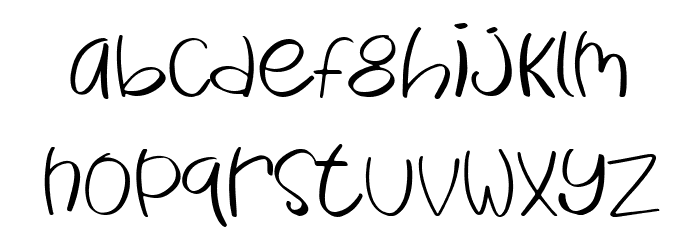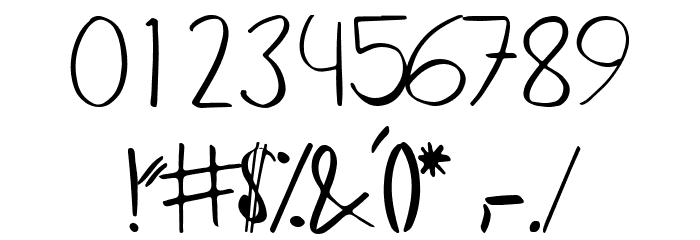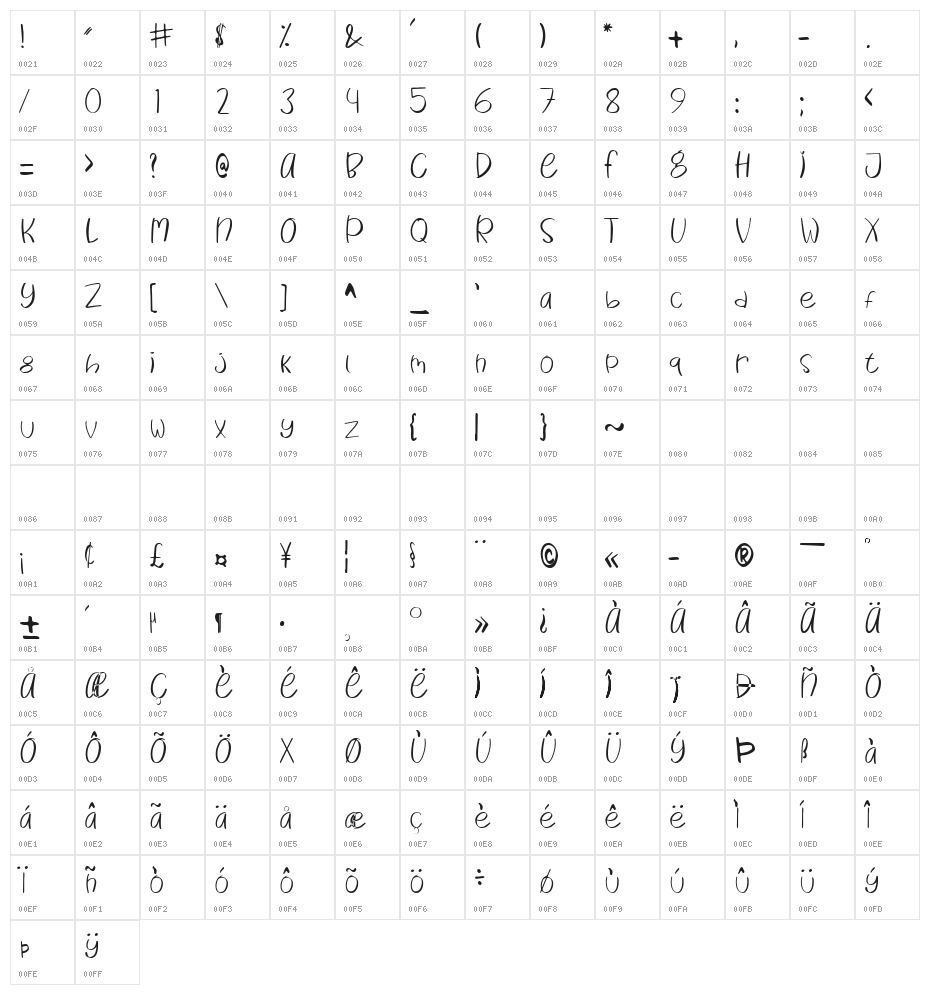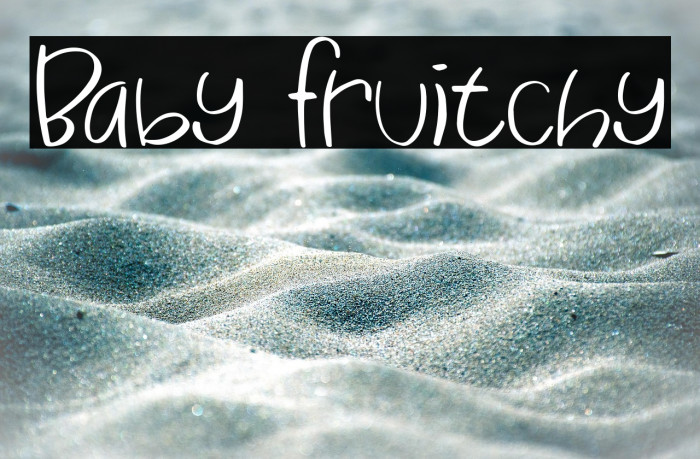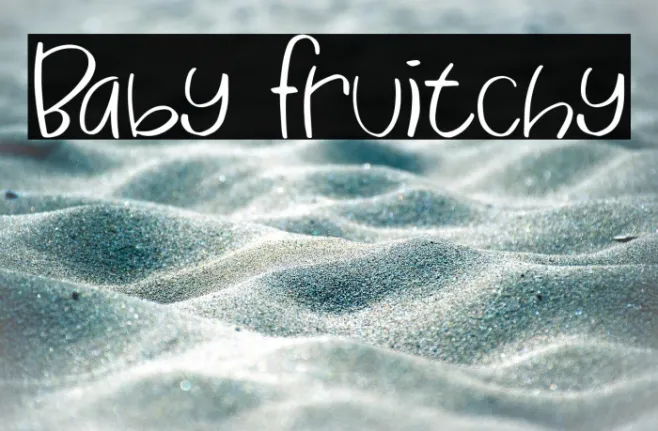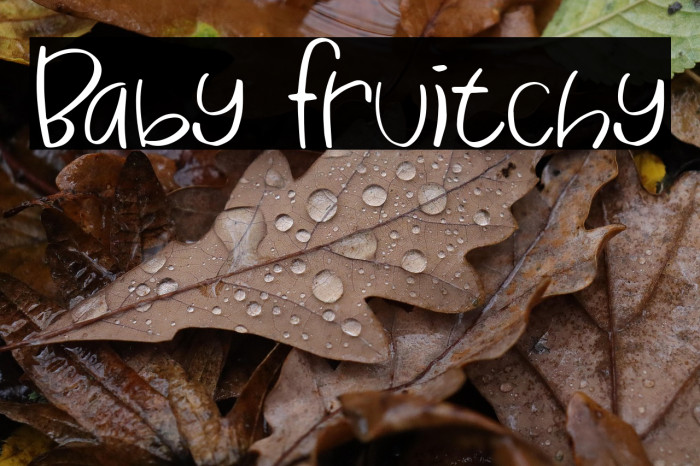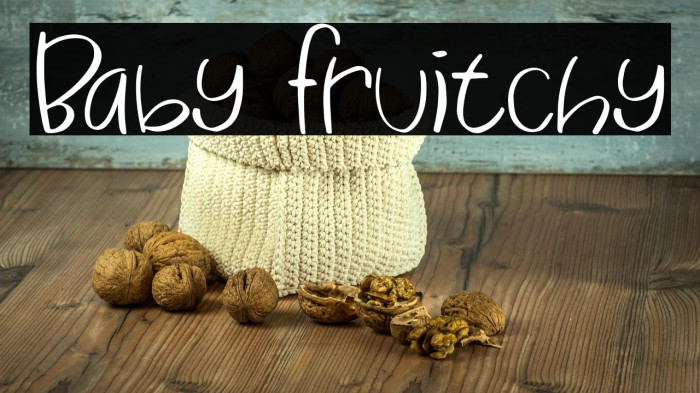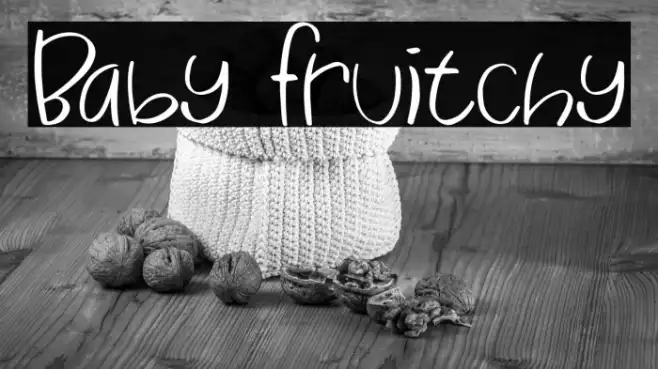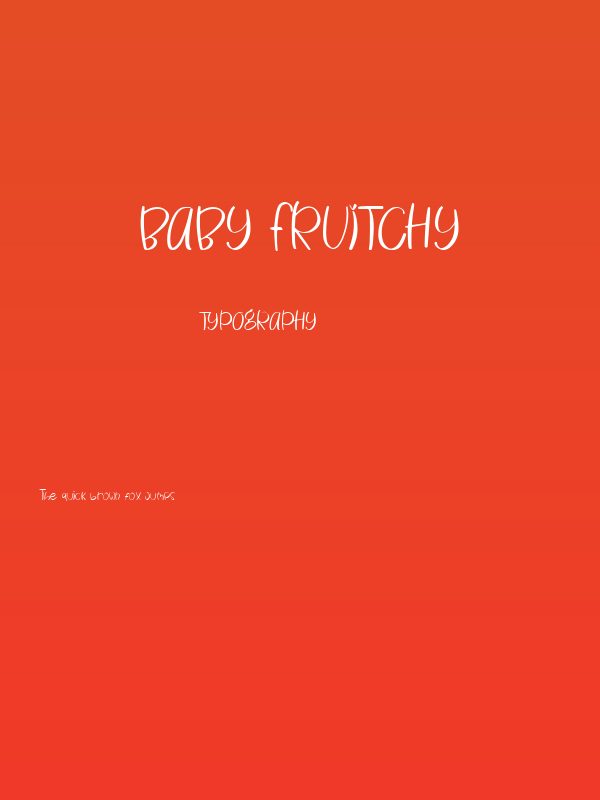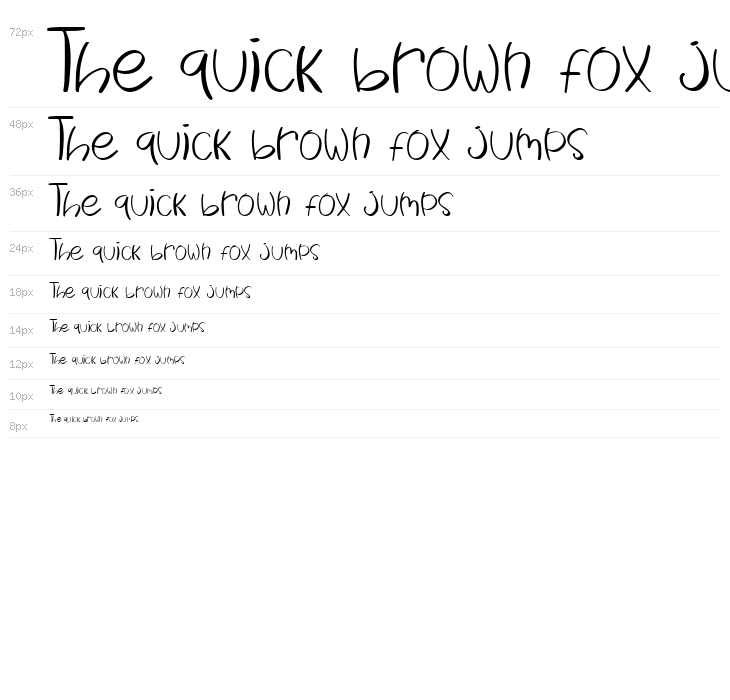
Baby Fruitchy Font
This playful and whimsical font features a handwritten style with a casual and friendly appearance. The letters are slightly slanted, giving it a dynamic and lively feel. The strokes are smooth and rounded, with a consistent thickness that maintains readability while adding a touch of fun. The characters have a natural flow, resembling a personal touch that is both inviting and approachable. The numbers and special characters maintain the same playful style, making it versatile for various uses. Its informal and relaxed nature makes it ideal for projects that require a personal and engaging touch.
- Proposed Projects: Ideal for children's books, greeting cards, playful branding, and social media graphics.
- Category: Handwritten
- Overall Style: Playful
- Use Case: Headlines, Informal text, Creative projects